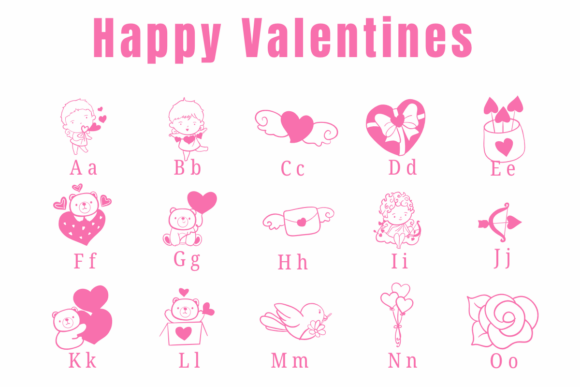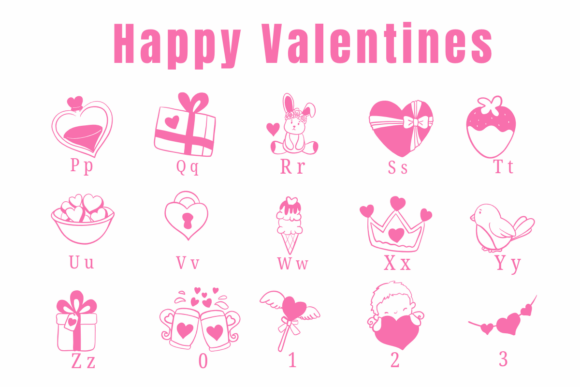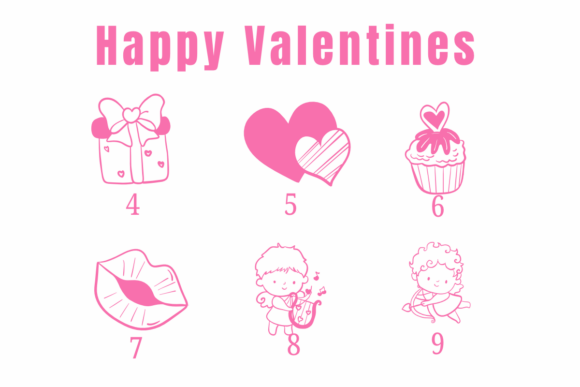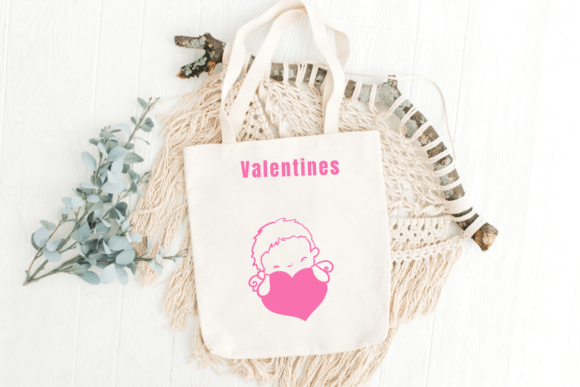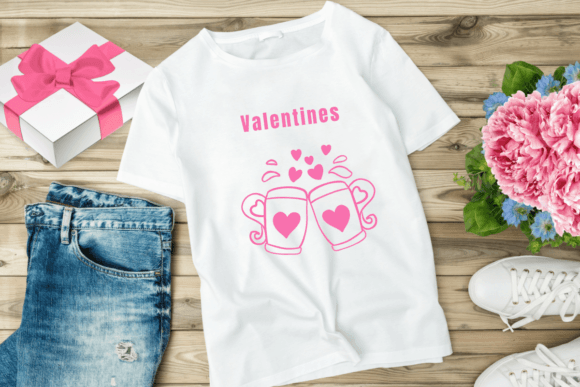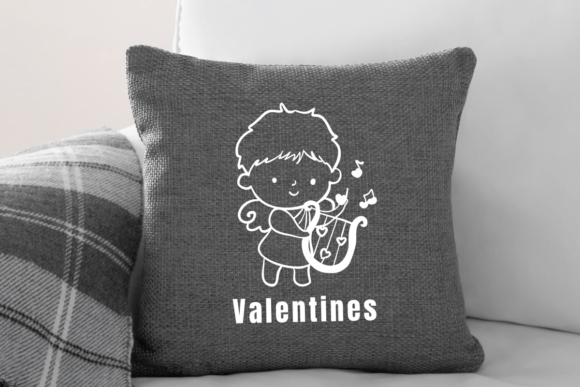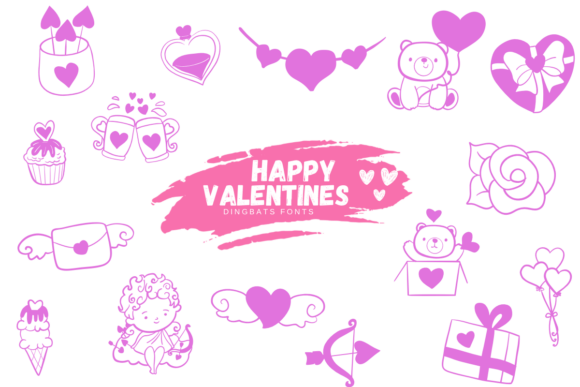
Happy Valentines Font: Add a Touch of Romance to Your Designs
Valentine’s Day is just around the corner, and what better way to celebrate than with a special font that’s filled with festive symbols and charm? Introducing Happy Valentines Dingbat Font, a fun and adorable font that’s perfect for designers and crafters looking to add a romantic touch to their projects.
What is Happy Valentines Dingbat Font?
Happy Valentines Dingbat Font is a unique and delightful font that’s packed with Valentine’s Day-themed symbols, including hearts, Cupid, love letters, and roses. This charming font is designed to bring a smile to your face and a touch of whimsy to your designs. With its playful and romantic vibe, it’s ideal for creating cute and eye-catching cards, invitations, decorations, and more.
Features of Happy Valentines Dingbat Font
- Valentine’s Day symbols: The font includes a wide range of Valentine’s Day-themed symbols, such as hearts, Cupid, love letters, roses, and more.
- Fun and charming: The font has a playful and whimsical feel, making it perfect for creating designs that are both cute and romantic.
- Versatile: The font can be used for a variety of projects, including cards, invitations, decorations, and more.
Uses for Happy Valentines Dingbat Font
Happy Valentines Dingbat Font is perfect for designers and crafters who want to add a touch of romance and whimsy to their projects. Here are some ideas for using this delightful font:
- Valentine’s Day cards: Create custom Valentine’s Day cards with a personal touch using Happy Valentines Dingbat Font.
- Invitations: Design beautiful and festive invitations for Valentine’s Day parties, weddings, or other romantic events.
- Decorations: Use the font to create cute and romantic decorations, such as garlands, banners, or gift tags.
- Digital designs: Add a touch of whimsy to your digital designs, such as social media graphics, blog posts, or email newsletters.
- Experiment with different sizes: Try using the font in different sizes to create visual interest and add emphasis to your designs.
- Mix and match symbols: Combine different symbols and characters to create unique and eye-catching designs.
- Pair with other fonts: Pair Happy Valentines Dingbat Font with other fonts to create a contrasting look and add visual interest.
Happy Valentines Dingbat Font is a fun and charming font that’s perfect for designers and crafters looking to add a touch of romance and whimsy to their projects. With its wide range of Valentine’s Day-themed symbols and easy-to-use design, it’s ideal for creating cute and eye-catching cards, invitations, decorations, and more. So why not give it a try and make your Valentine’s Day designs truly special?